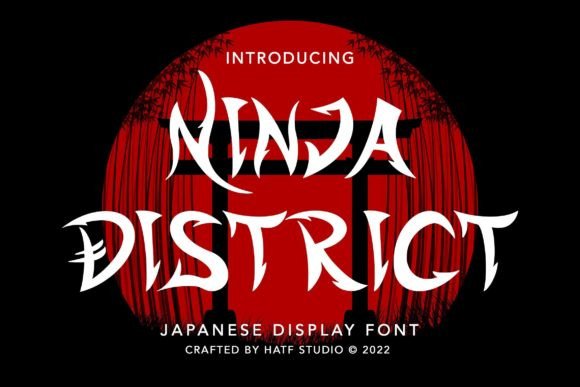
Prepare to be mesmerized by Ninja District, the display font that will ignite your creativity and transport you to a realm of visual enchantment. This font is a true game-changer, meticulously crafted to captivate and inspire. Its bold and striking presence makes it the perfect choice for fashion brands seeking a logo that exudes power and personality.
With Ninja District, you'll leave a lasting impression on your audience. Its unique design, reminiscent of ancient Japanese calligraphy, adds a touch of intrigue and mystery to your brand identity. Each letterform is meticulously designed to convey strength and confidence, making it an ideal choice for logos, headlines, and other prominent text elements.
Step into the spotlight with Ninja District, the font that commands attention and sets you apart from the crowd. Its versatility extends beyond logos, making it a perfect fit for posters, social media graphics, and any design project where you want to make a bold statement.
Imagine your brand adorned with Ninja District, a font that speaks volumes without uttering a single word. Its dynamic curves and sharp angles create a visual symphony that resonates with energy and style. Prepare to witness the transformation of your brand into a captivating force, leaving a trail of awe and admiration wherever it goes.
Unlock the gateway to creative freedom with Ninja District. It's a font that ignites your imagination and unleashes a torrent of possibilities. Its unique aesthetic invites you to push boundaries and explore uncharted territories of design. Feel the exhilaration as your creativity takes flight, knowing that Ninja District is your trusted companion on this extraordinary journey.